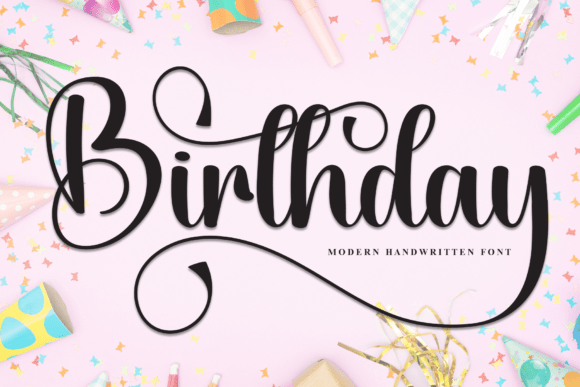
The Perfect Script Font for Every Special Moment
As designers, we’ve all been there – staring at a blank page, trying to find the perfect words to express our feelings to that special someone. Whether it’s a wedding invitation, a birthday message, or a heartfelt thank-you note, the right font can make all the difference. And that’s where the Birthday Font comes in – a beautiful, handwritten script font that radiates warmth and affection.
This elegant font is perfect for designers who want to add a personal touch to their projects. With its flowing strokes and delicate curves, the Birthday Font is ideal for romantic projects, branding, and messaging. Its versatility and charm make it a valuable asset for designers who want to convey emotions with style and sophistication.
Whether you’re working on a wedding invitation, a birthday card, or a branding project, the Birthday Font is sure to make a lasting impression. Its unique, handwritten feel adds an intimate and personal touch that’s hard to find with other fonts. So why settle for ordinary when you can make your designs extraordinary with the Birthday Font?
Birthday Font Key Features
- Unique Characteristics: The Birthday Font features a playful, cursive design with intricate details and flourishes, making it perfect for adding a celebratory touch to designs.
Birthday Font Review
As a designer, I was excited to try out the Birthday Font. Here’s my honest take on it.
- Unique and playful design: The Birthday Font is perfect for adding a pop of personality to your designs, especially when it comes to celebratory content.
- Good legibility: Despite its decorative nature, the font remains easy to read, making it suitable for a wide range of applications.
- Customization options: The font comes in various weights and styles, giving users flexibility to tailor it to their specific design needs.
- Limited versatility: While the Birthday Font is great for birthday-themed designs, it might not be the best choice for more formal or professional projects.
- Not ideal for body text: Due to its decorative nature, the font can be overwhelming when used extensively for body text.
Overall, I think the Birthday Font is a fun and creative addition to any designer’s toolkit. While it has some limitations, its unique design and customization options make it a great choice for the right projects.
The Birthday Font is commonly used for:
- Personalized birthday invitations and cards.
- Party decorations and banners.
- Photography and graphic design projects.